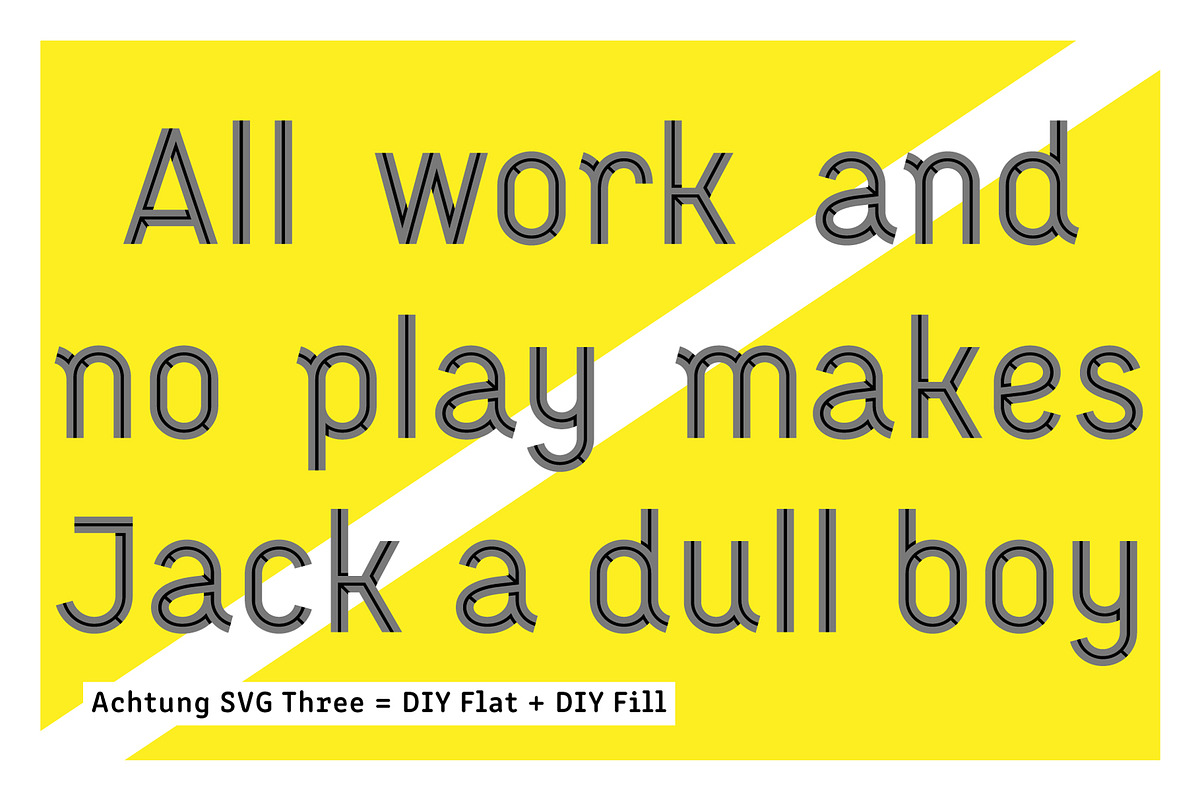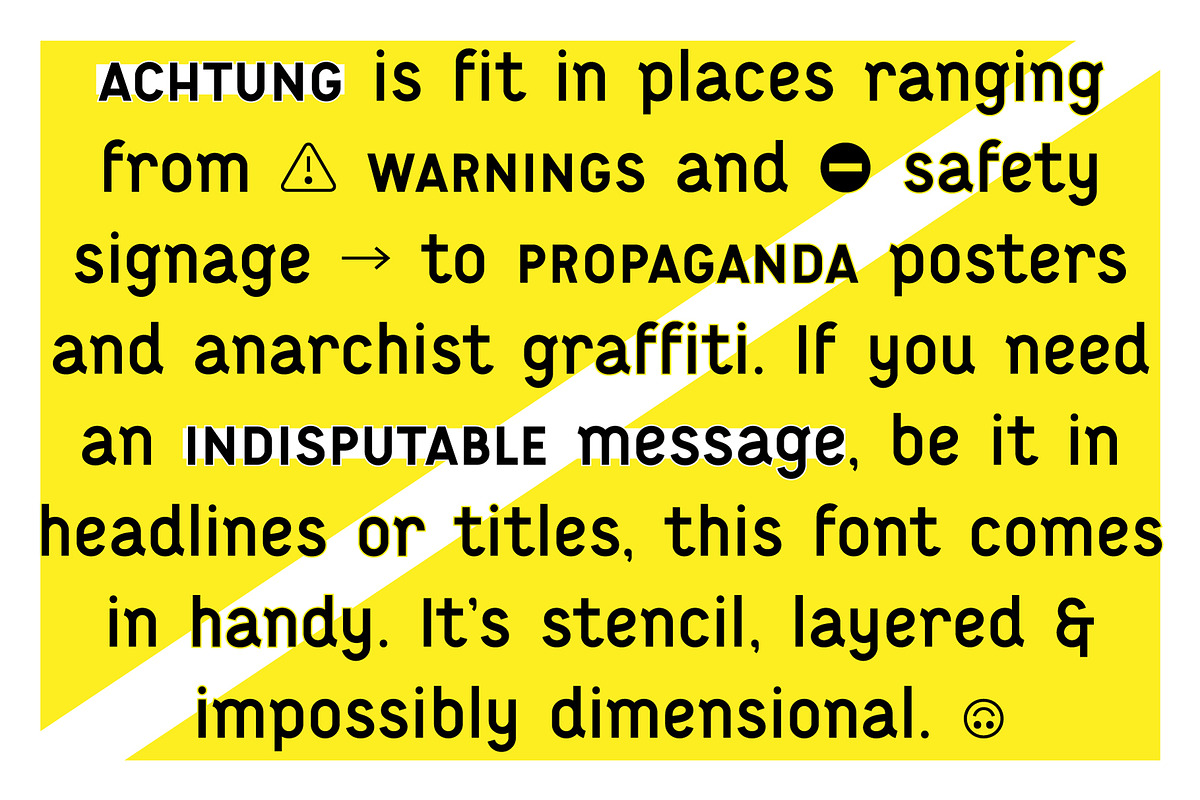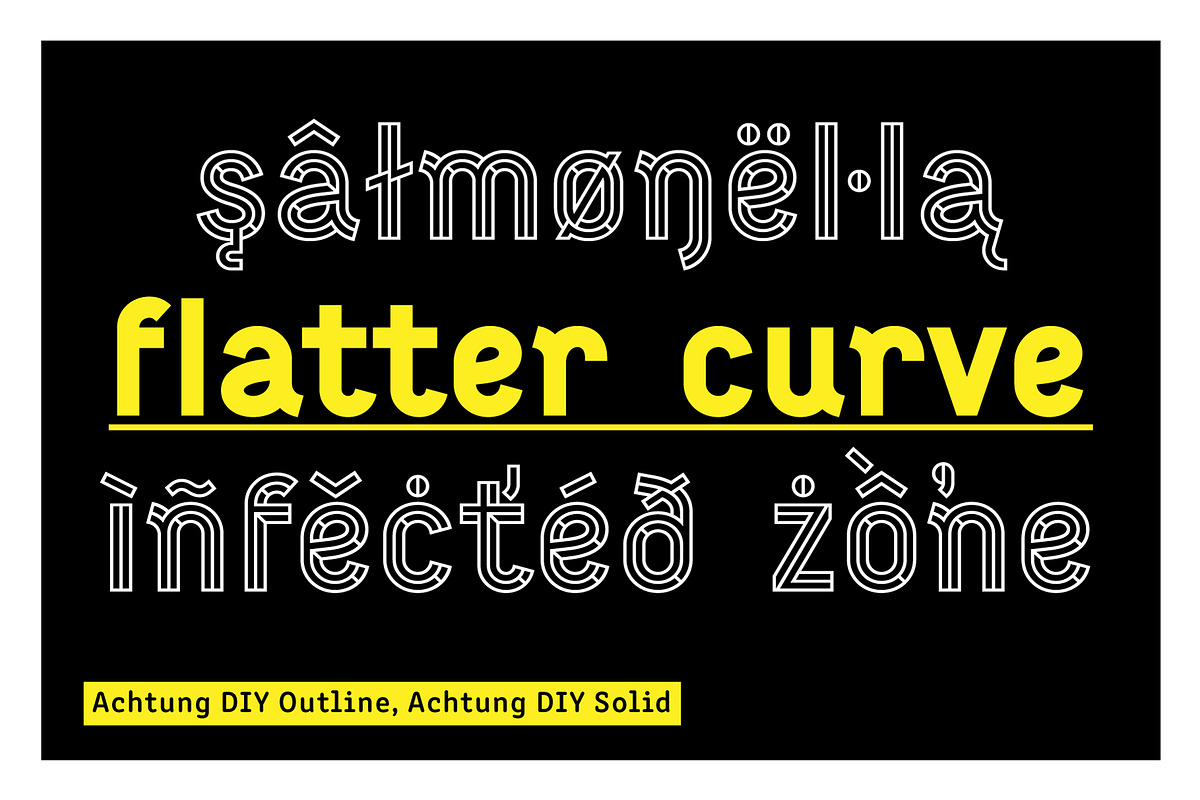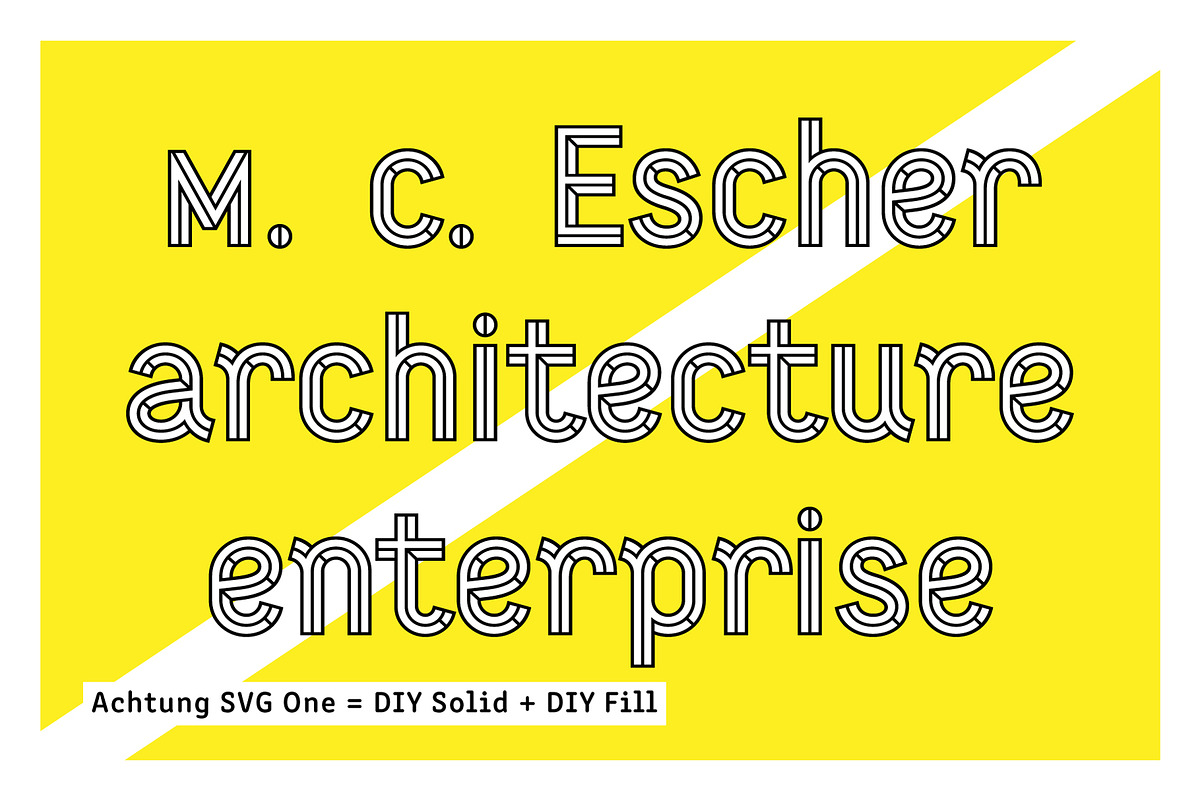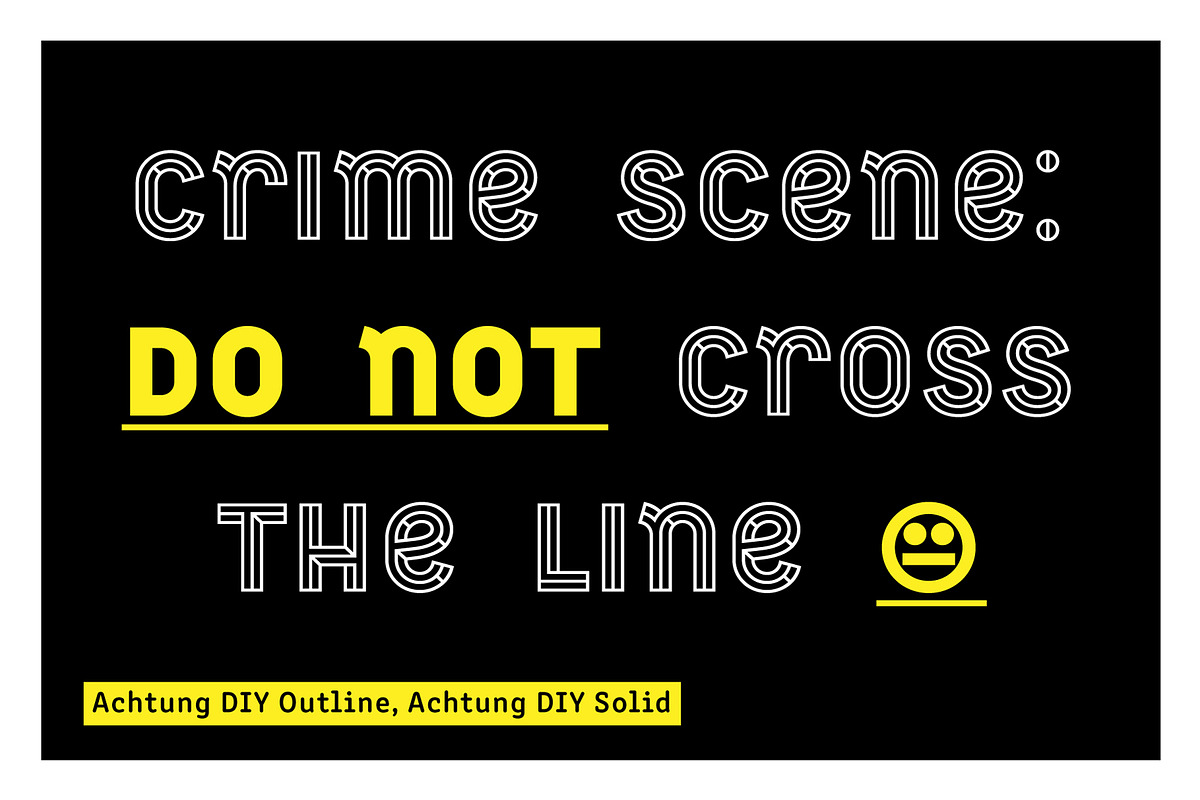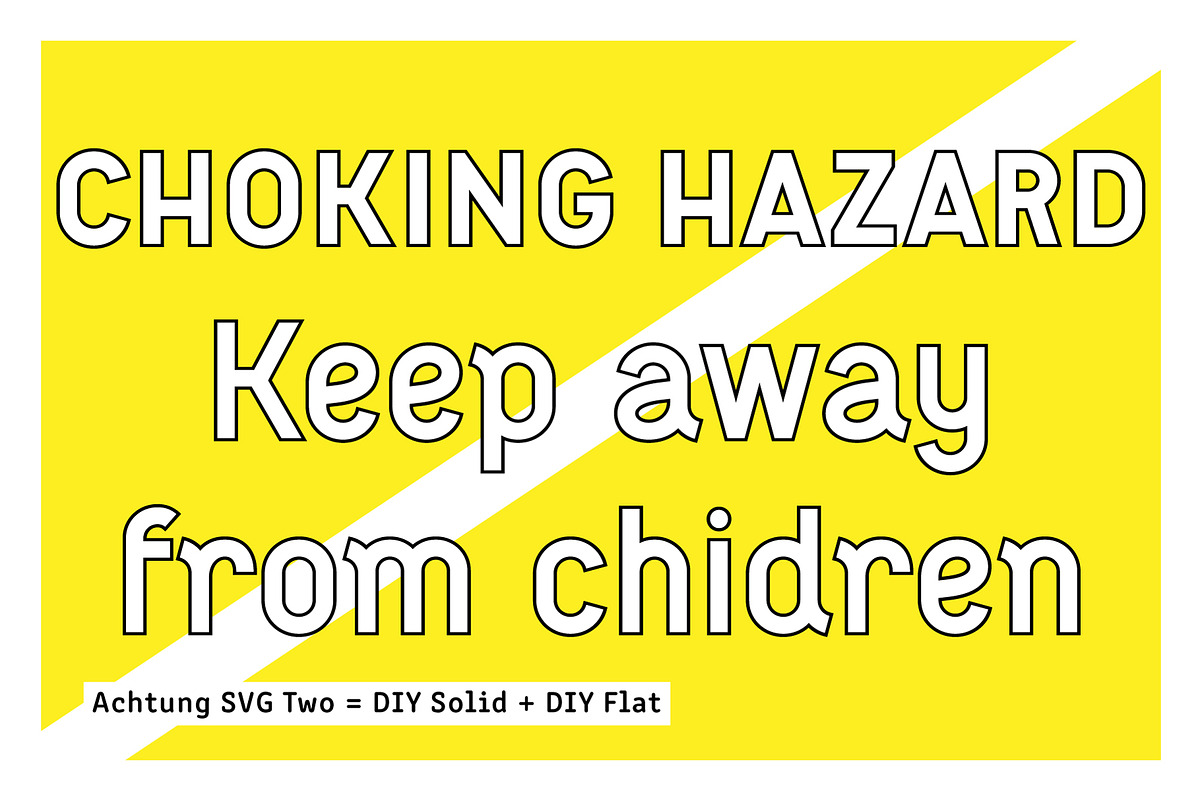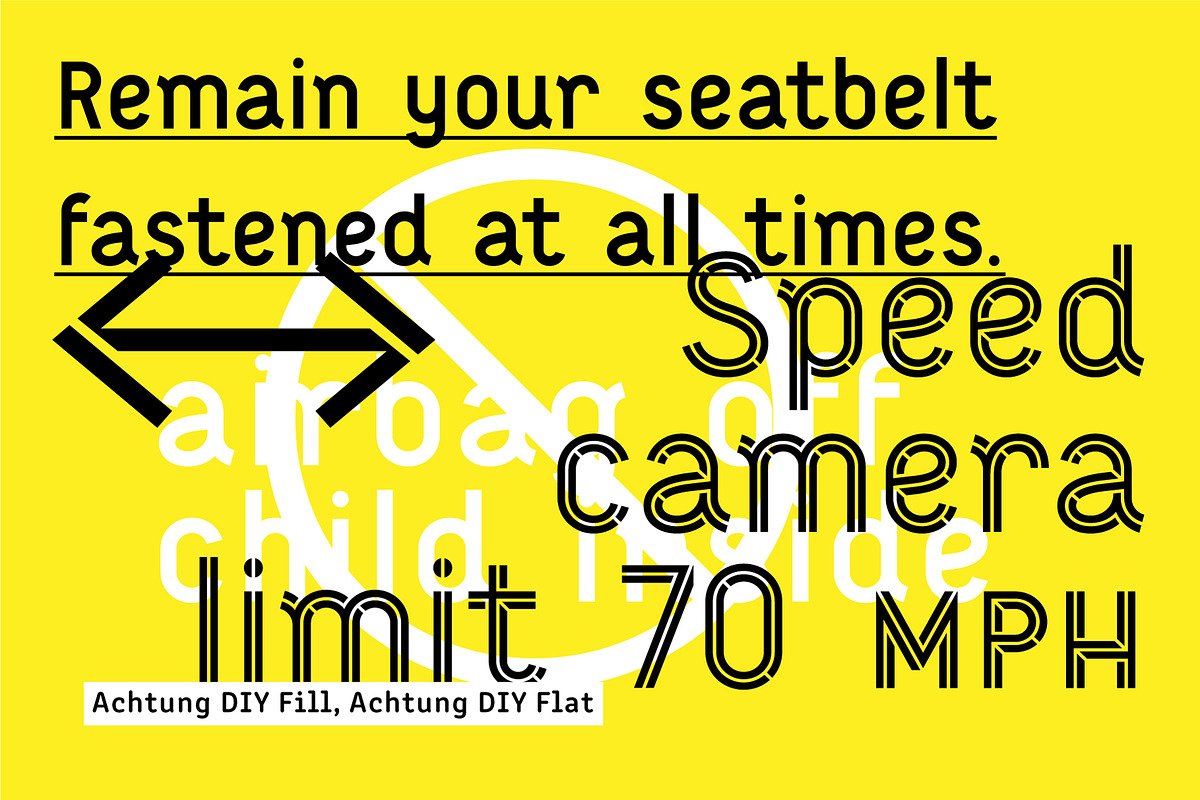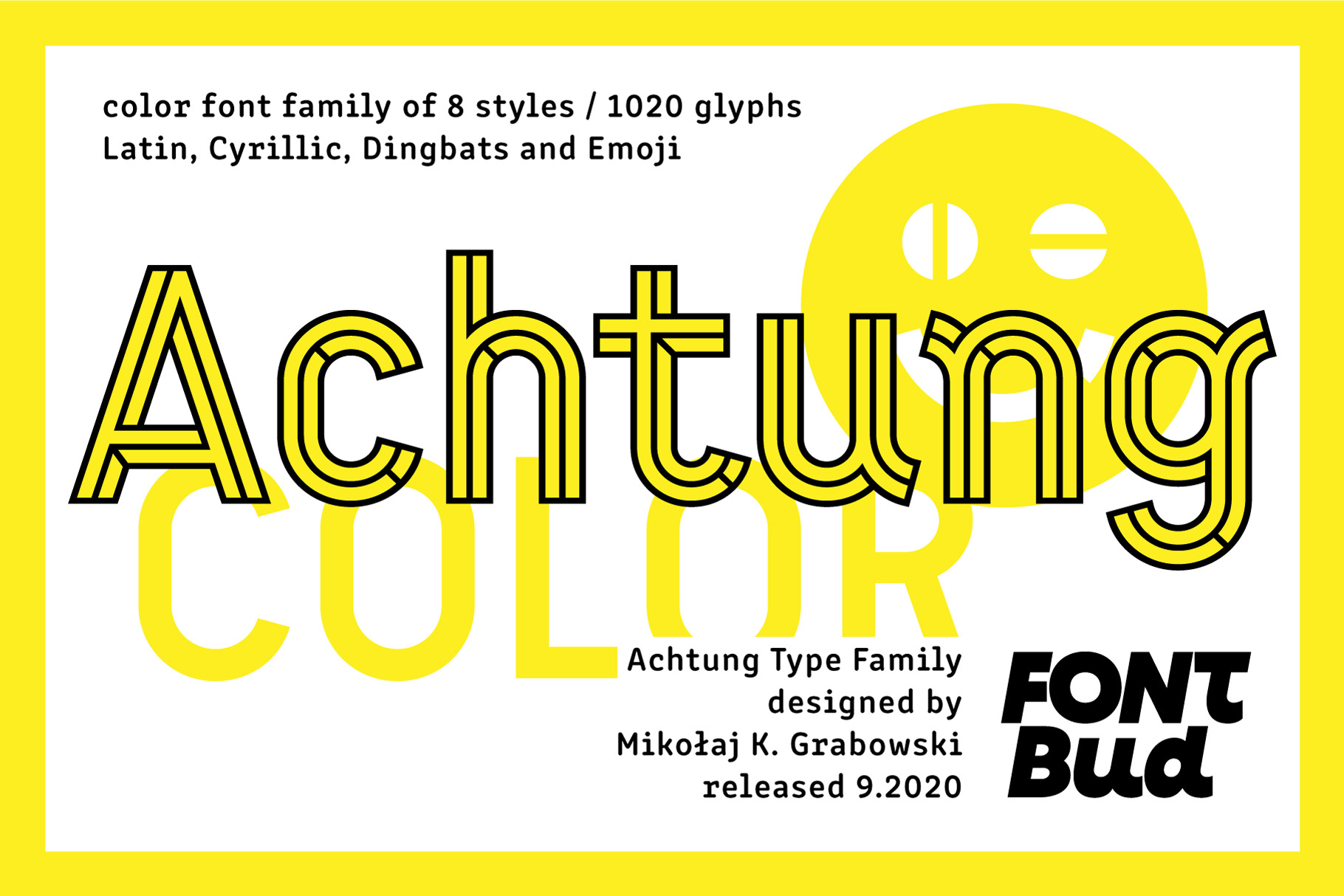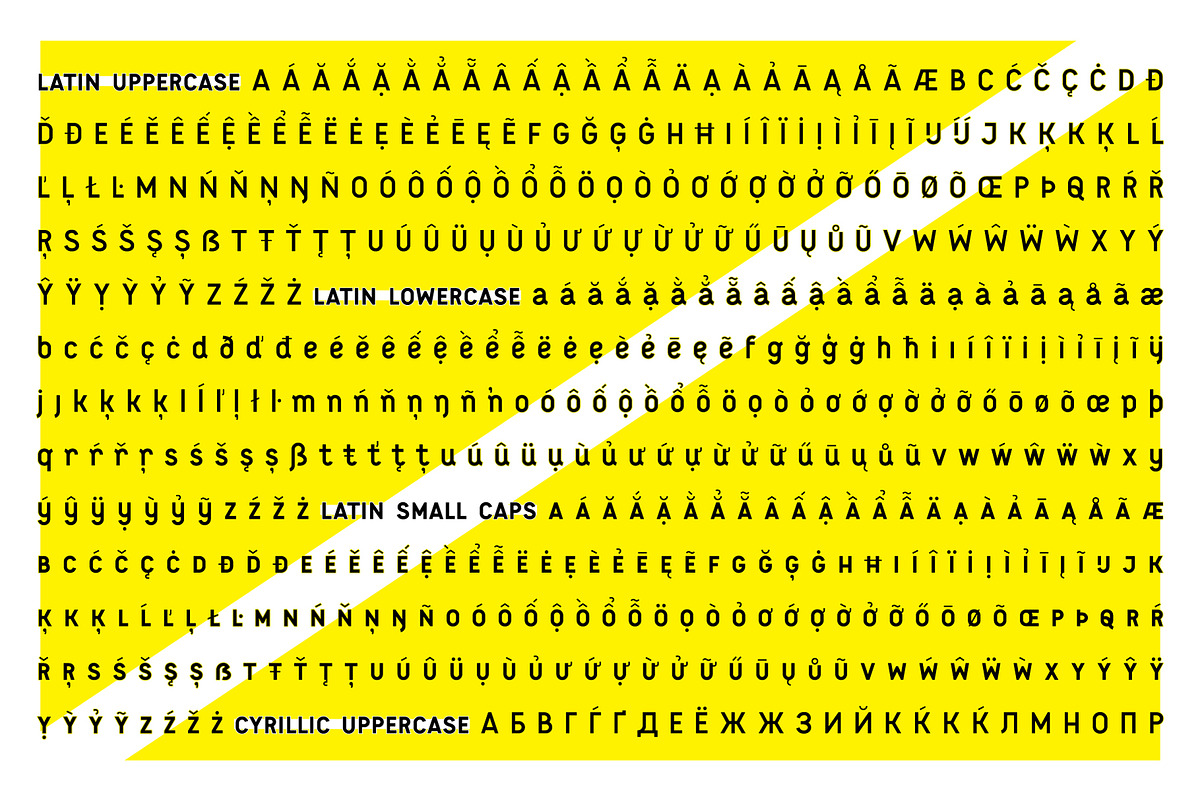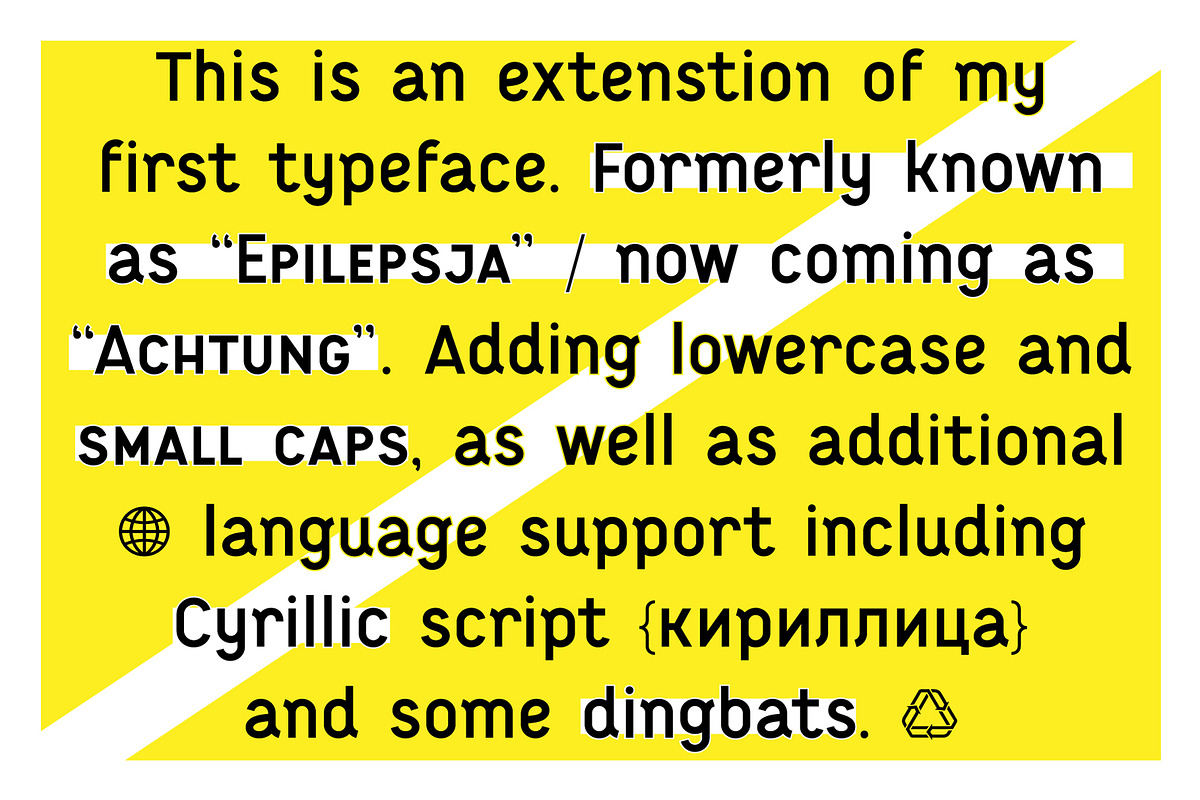
Achtung color font - DIY sub-family
ACHTUNG is a stunning new extension of Mikołaj Grabowski's first ever typeface, EPILEPSJA. Now offering lowercase and small caps, additional language support, Cyrillic script and dingbats, ACHTUNG Colour Type Family has everything you need to share bold, brave messages.
ACHTUNG's potential spans far and wide - think anything from warning/safety signage to propaganda posters, anarchist graffiti to powerful branding. Structured as a stencil, its forms are multilayered and impossibly dimensional; leaving a crisp, clean and charismatic feel. Download the specimen here: https://indd.adobe.com/view/16f5f834-1ffc-4b69-8255-e227fcd8b021 (We advise so you know how to use the font)
FEATURES — Total Glyphset: 1018 — Languages: Afrikaans, Albanian, Bosnian, Bulgarian, Catalan, Croatian, Czech, Danish, Dutch, English, Estonian, Finnish, French, German, Hungarian, Icelandic, Italian, Latvian, Lithuanian, Macedonian, Maltese, Norwegian, Polish, Portuguese, Romanian, Russian, Serbian, Slovak, Slovenian, Spanish, Swedish, Turkish, Ukrainian, Vietnamese, Zulu. — OpenType Features: small caps, localisations, superscript, fractions, ordinals, proportional and tabular figures, case sensitive forms, stylistic alternates, contextual alternates and proper mark attachment